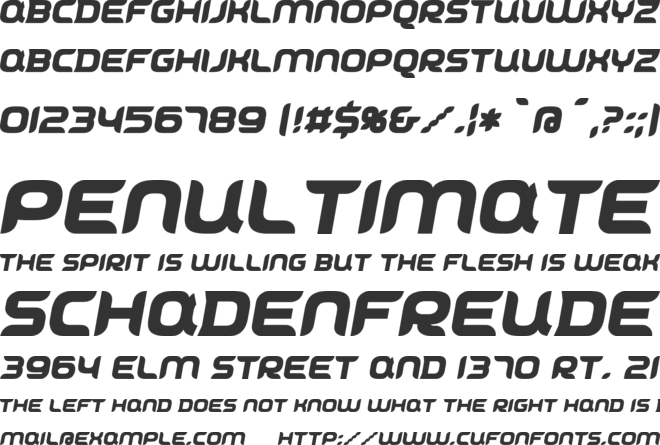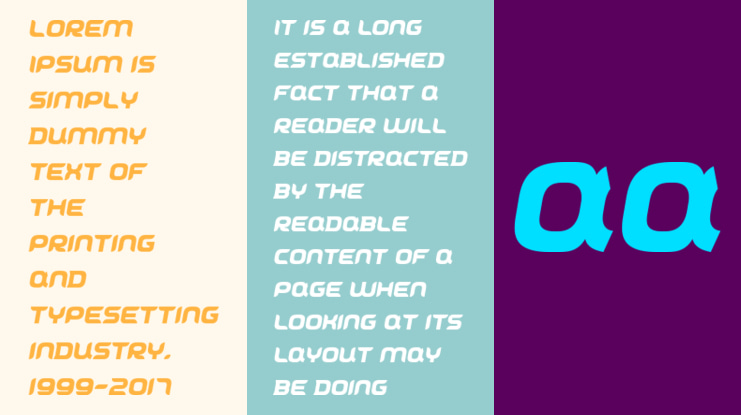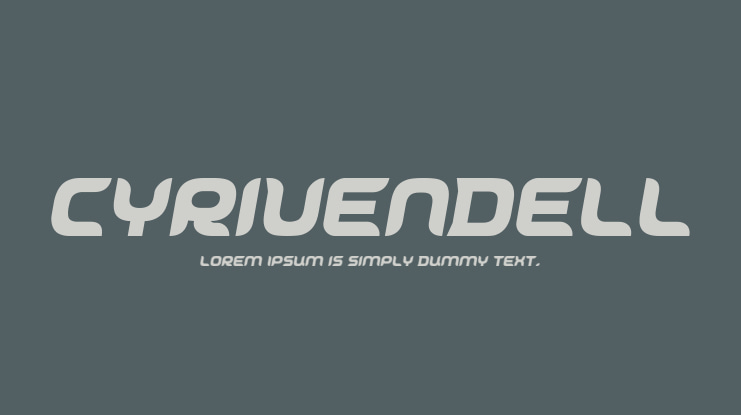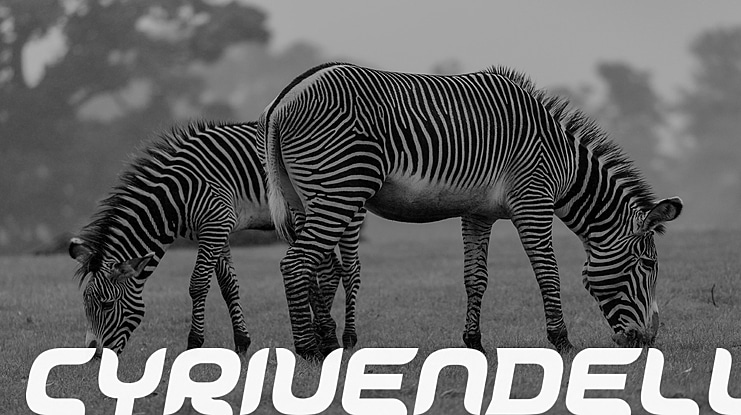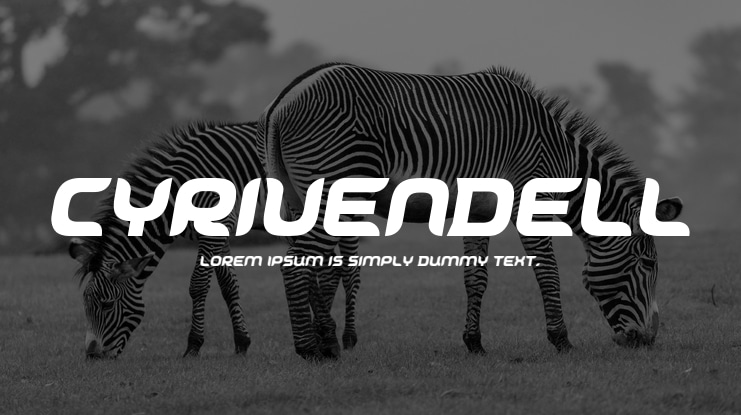
Cyrivendell Font
Cyrivendell - a portmanteau of Cyrillic (which it does support entirely) and Rivendell, the fictional city from LOTR. This script does resemble a couple of existing and popular fonts; this one, however, focuses on Cyrillic and also contains every European international character. There is full Cyrillic support for Serbian, Macedonian, Russian, Ukrainian, Bulgarian and Belarusian. If you like (and intend to use) the font, please drop a line. Feedback is welcome.